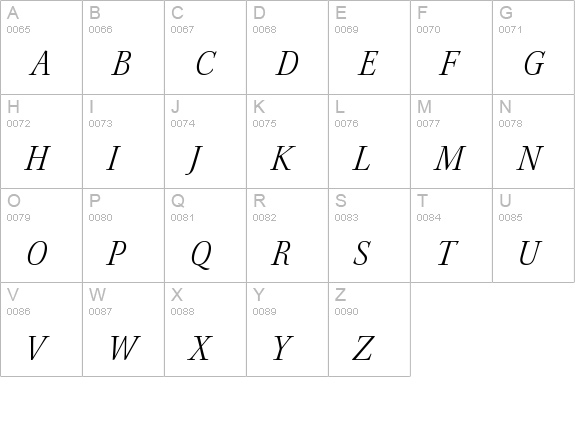
Kepler Std Light Semicondensed Italic Subhead Font Details
Kepler Std Light Semicondensed Italic Subhead is a refined, elegant, italic variant in the Kepler typeface family \xE2\x80\x94 well suited to elegant body text, refined sub-headings, and luxury branding.
Kepler Std Light Semicondensed Italic Subhead font is a remarkable typeface that embodies elegance and sophistication. Its slender and condensed letterforms add a touch of modernity, making it perfect for subheadings and titles in various design projects. The delicate italic slant of this font imparts a sense of movement and grace, lending a dynamic flair to any text it graces. With its light weight, Kepler Std Light Semicondensed Italic Subhead font exudes a subtle airiness that allows it to seamlessly blend with any design composition. This font's exceptional versatility stems from its ability to adapt to a wide range of design contexts. Whether it's used in editorial layouts, branding materials, or web designs, Kepler Std Light Semicondensed Italic Subhead font consistently delivers a refined and contemporary aesthetic. One of the most remarkable aspects of this font is that it is freely available to download at FontsMarket.com. This means that designers and enthusiasts can easily access and incorporate Kepler Std Light Semicondensed Italic Subhead font into their creative projects, without any financial constraints. With its clean lines, balanced proportions, and exquisite italic styling, Kepler Std Light Semicondensed Italic Subhead font is a true gem for designers seeking a sophisticated and versatile typeface. Its availability as a free download further enhances its appeal, making it a valuable addition to any design toolkit.